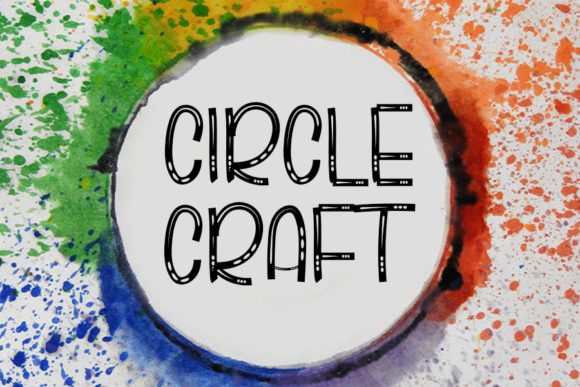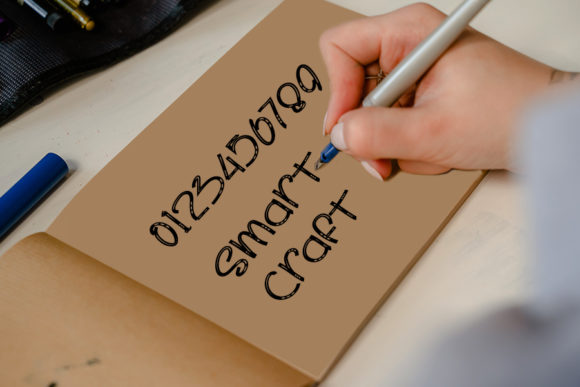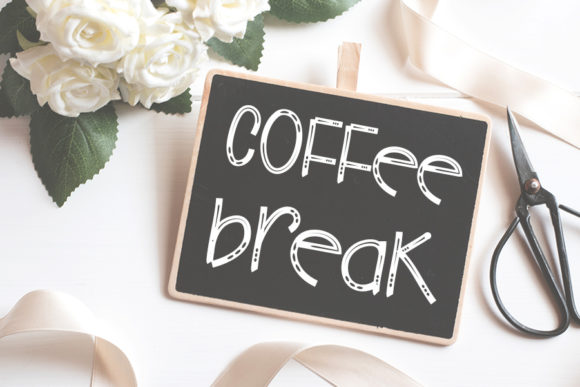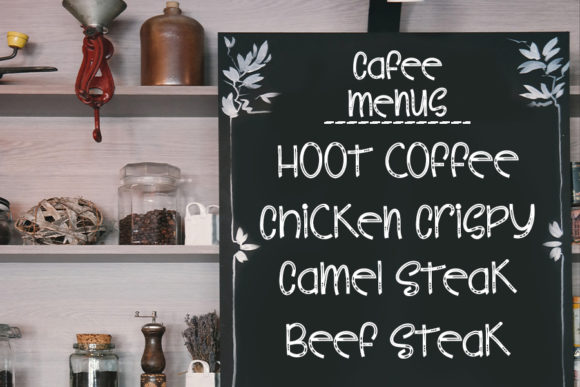
Introduction to Hello Moon Font
Hello Moon is a sweet and simple display font.
Add this font to your favorite creative ideas and notice how it makes them come alive .